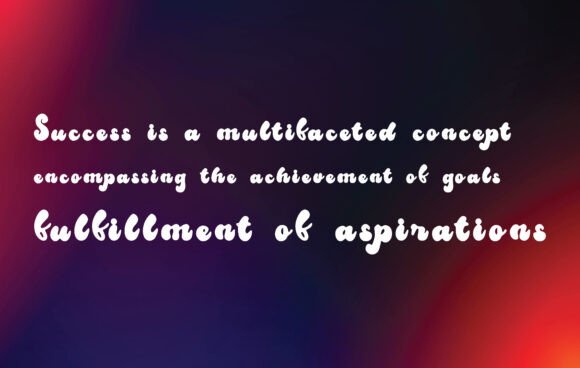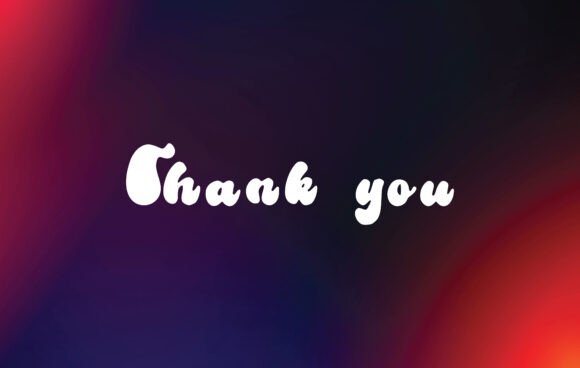
Introduction to Oliver Font
Have you ever been working on a creative project, pouring your heart and soul into it, only to realize that the perfect font is missing? The excitement and inspiration start to fade away, and you’re left with a blank page. This is where the magic of the Oliver Font comes in – a stunning, high-quality handwritten font designed to elevate your creative ideas to new heights.
As a designer, you understand the importance of a well-chosen font in making your work stand out. The Oliver Font is a valuable design resource that can be used to create eye-catching logos, branding, and quotes. With its beautiful, cursive script and transparent background, it’s the perfect addition to any creative project.
Key Features of Oliver Font
- Designed with a modern and clean aesthetic, making it suitable for a variety of creative projects.
- Resolution-independent, ensuring crisp and clear text rendering at any size.
- Comes in a single font size, with no bold or italic variations, making it perfect for those who want a simple, elegant look.
Honest Review: Oliver Font
I recently stumbled upon the Oliver Font and I must say, I’m quite impressed. As a designer, I’m always on the lookout for high-quality design resources that can elevate my creative projects.
What works well: ✨ The Oliver Font has a clean and modern aesthetic that makes it perfect for a variety of applications. I particularly like that it’s available for free download, which is a huge plus. The font also comes with a transparent background, making it easy to customize and integrate into any design.
Some limitations: ⚠️ While the Oliver Font is high-quality, it’s not as extensive as some other font collections. The number of styles and weights is relatively limited, which may be a drawback for designers who require more flexibility.
Here are some key features of the Oliver Font:
- Modern aesthetic
- Available in multiple weights and styles
Overall, I’d say the Oliver Font is a solid addition to any designer’s toolkit. While it may not be the most comprehensive font collection, its clean design and free download make it a great resource for creative projects. I’d definitely recommend giving it a try!
Tips for Getting the Most Out of Oliver Font
Experiment with different font sizes, colors, and styles to create a unique design. Use the transparent background to create a seamless integration with your images or graphics.
Common Use Cases for Oliver Font
Oliver Font is ideal for creative projects such as logos, business cards, brochures, and social media graphics. Its high-quality design and transparent background make it perfect for modern and professional designs.
Montserrat Font is a geometric sans-serif typeface that originated in Buenos Aires. It’s perfect for design projects that require a urban and modern aesthetic. Montserrat Font is available for free download and offers a transparent background, making it easy to use in your design. Compared to Oliver Font, Montserrat Font has a more rugged and industrial feel, making it suitable for projects that require a strong and edgy look.
What is the recommended resolution for using the Oliver Font?
For optimal results, we recommend using the Oliver Font at a resolution of 300 DPI or higher. This will ensure that the font appears crisp and clear, even when scaled up or down. Additionally, the font’s transparent background makes it ideal for use on complex backgrounds or with layered designs.